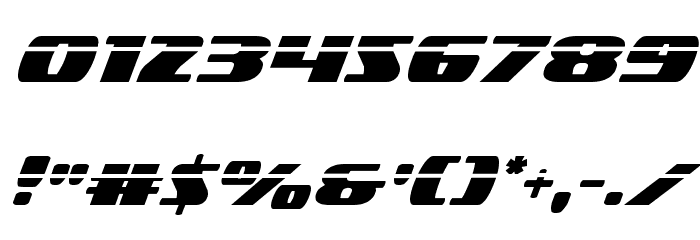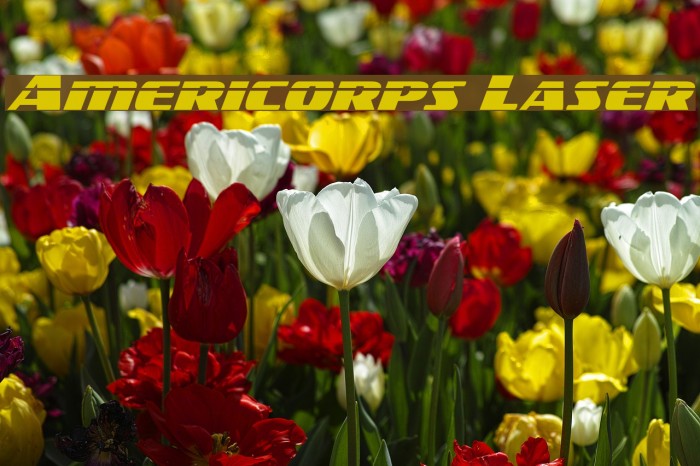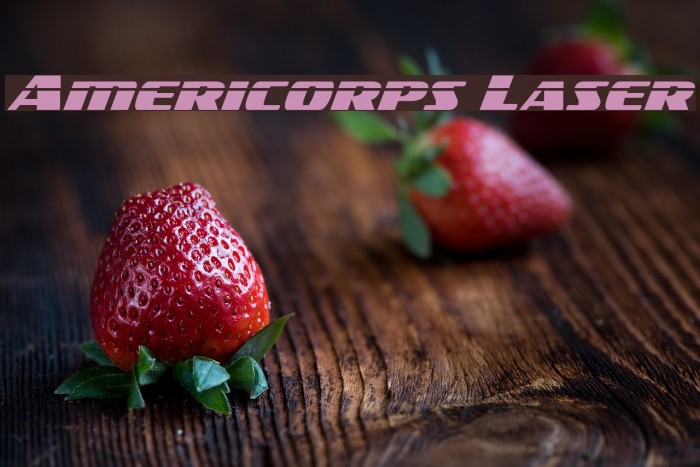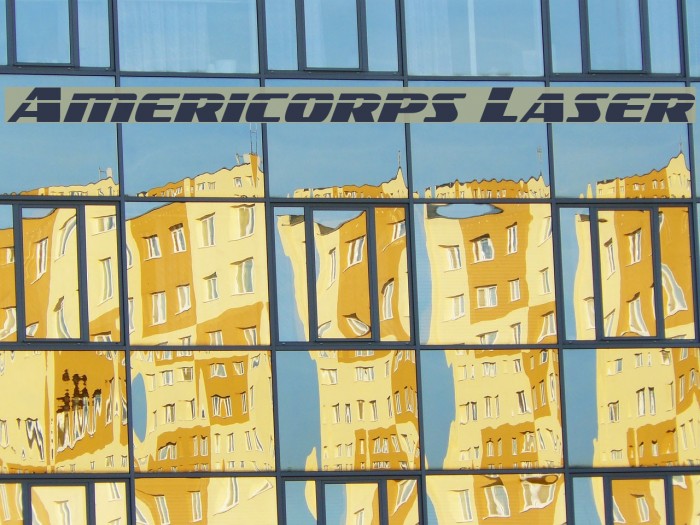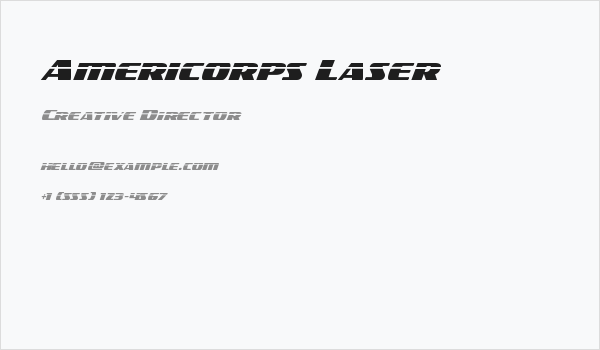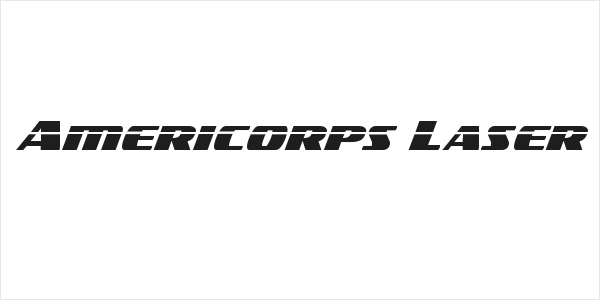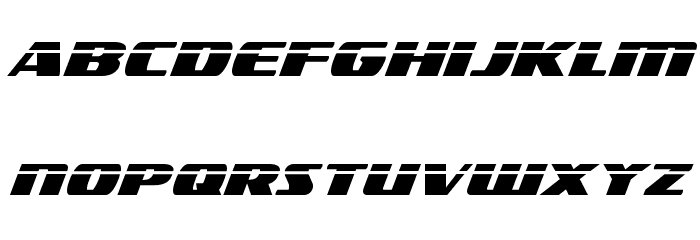
Americorps Laser Font
Americorps Laser Description
This font features a bold, futuristic design with sharp, angular edges and a distinct slant, giving it a dynamic and energetic appearance. The characters are uniformly bold, with a consistent stroke width that adds to its robust and impactful presence. The spacing between characters is tight, enhancing the compact and cohesive look. This style is reminiscent of sci-fi and tech themes, making it ideal for projects that require a modern and edgy aesthetic. The font includes a full set of uppercase and lowercase letters, numbers, and a variety of special characters, ensuring versatility for different design needs.
| Proposed Projects | Ideal for sci-fi themed designs, tech branding, video game titles, and futuristic posters. |